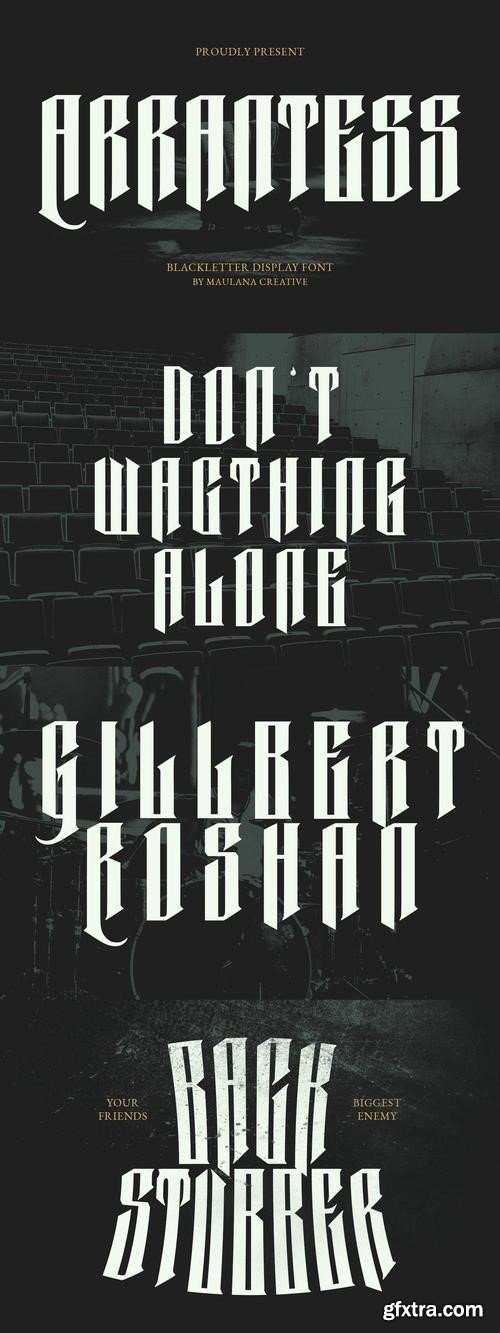
Arrantess Blackletter Display Font
Introducing Arrantess Blackletter Display Font.
Arrantess Blackletter Display Font is a handmade Modern Victorian handlettering, which is combining modern and classic typography with some awesome alternates. Yes we back to early 1800s, bring classic touch on this decade.
- Alternates